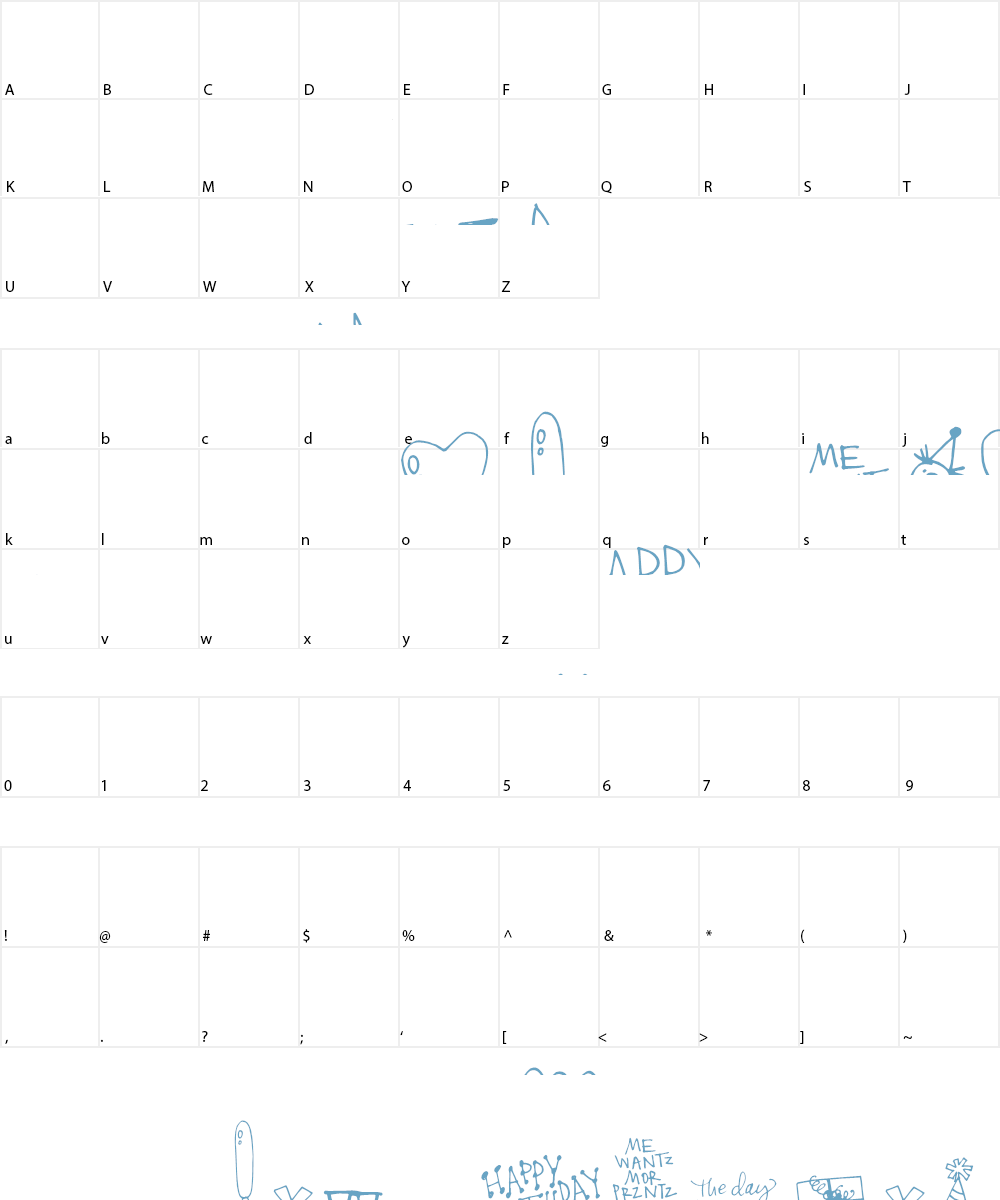
DJB It's My Birthday is a birthday themed dingbat font developed in conjunction with Brook Magee. It's full of doodled birthday goodness from balloons, to cupcakes to clowns to cakes and sayings that are great for photo accents, invitations, cards, scrapbook pages, book illustrations and more!